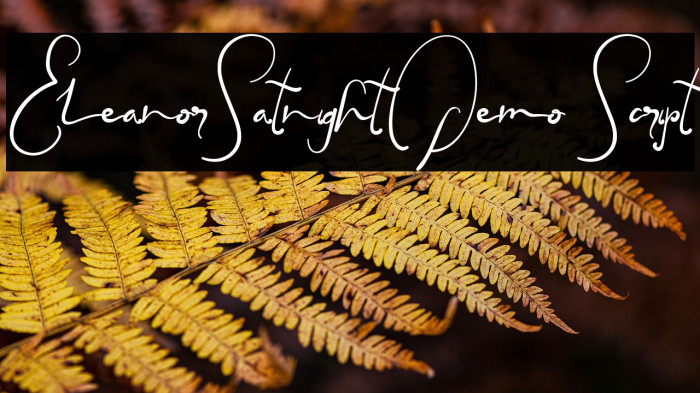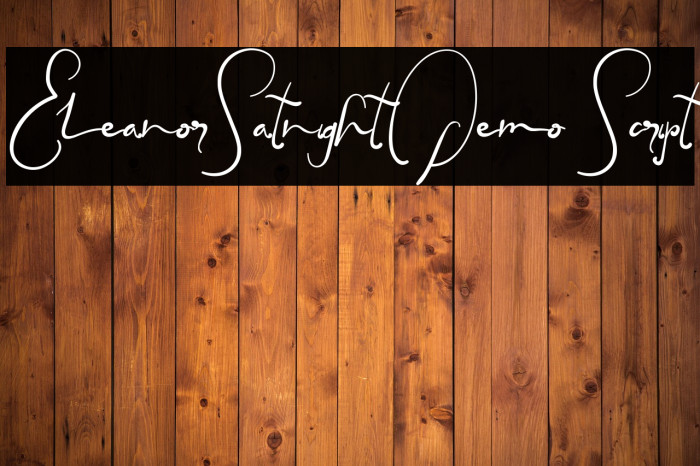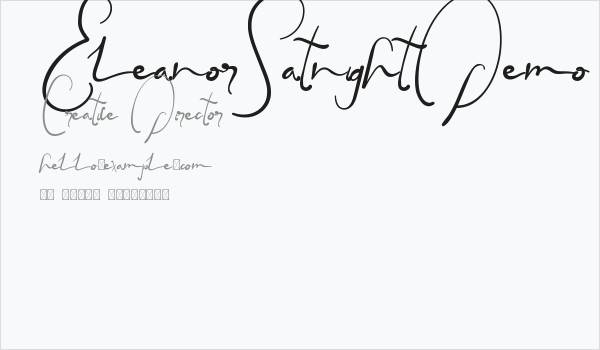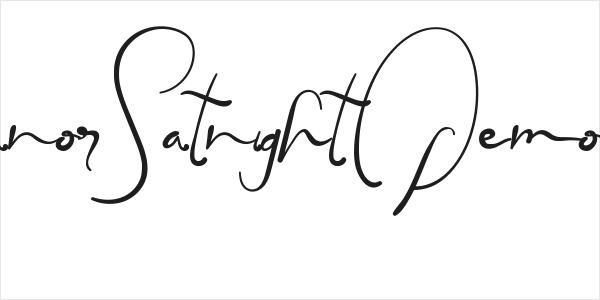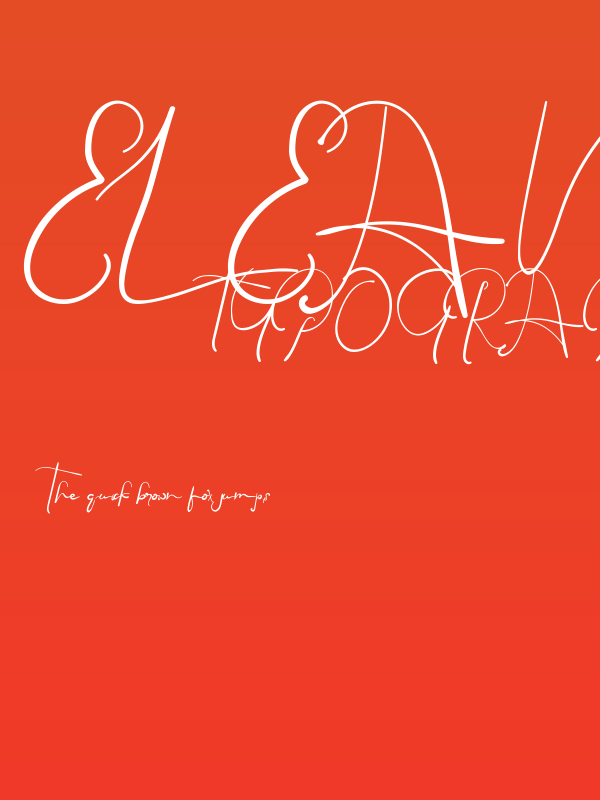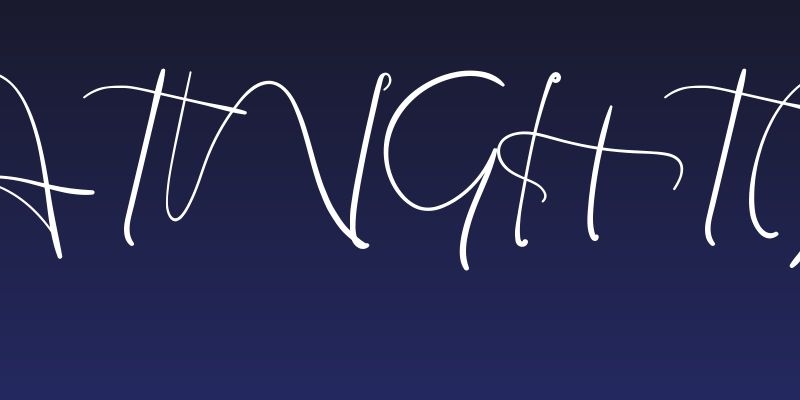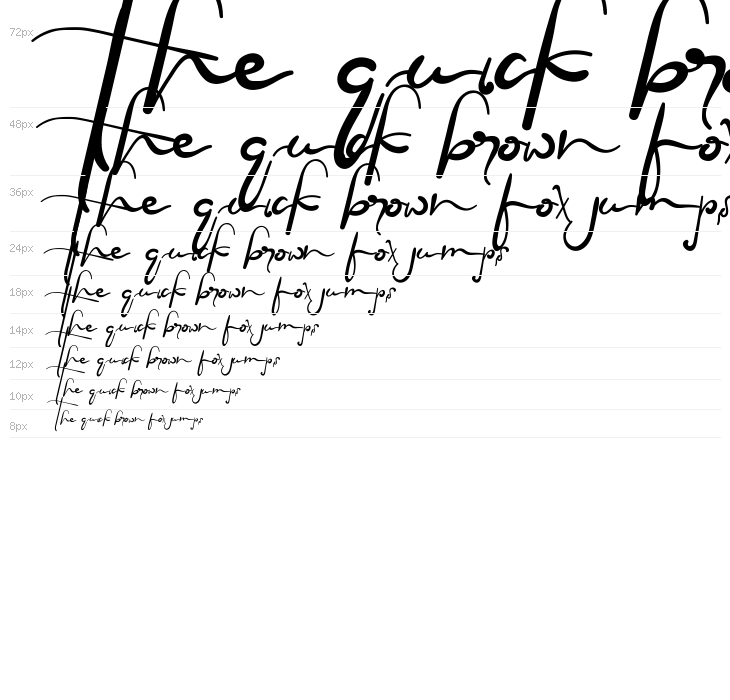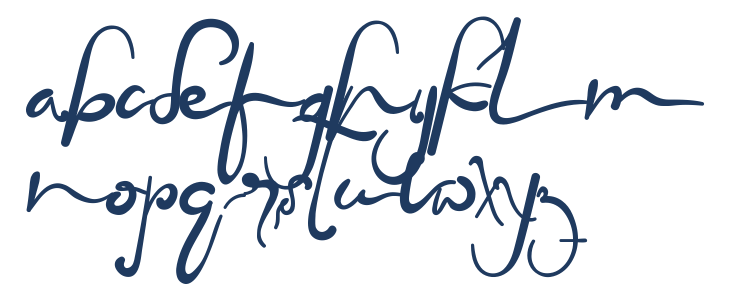
EleanorSatnightDemo Script Font
EleanorSatnightDemo Script Description
This font exudes a lively and elegant script style, characterized by its flowing, interconnected letterforms that mimic the fluidity of natural handwriting. The uppercase letters are tall and slender, with graceful loops and swirls that add a touch of sophistication. The lowercase letters maintain a consistent rhythm, with some characters extending below the baseline, enhancing the font's dynamic appearance. The overall design is both playful and refined, making it suitable for a variety of creative applications. The font's unique charm lies in its ability to convey a sense of personal touch and artistic flair, making it ideal for projects that require a handwritten aesthetic.
| Use Case | Logos, Invitations, Personal stationery |
| Proposed Projects | Ideal for wedding invitations, greeting cards, branding projects, and personal stationery. |